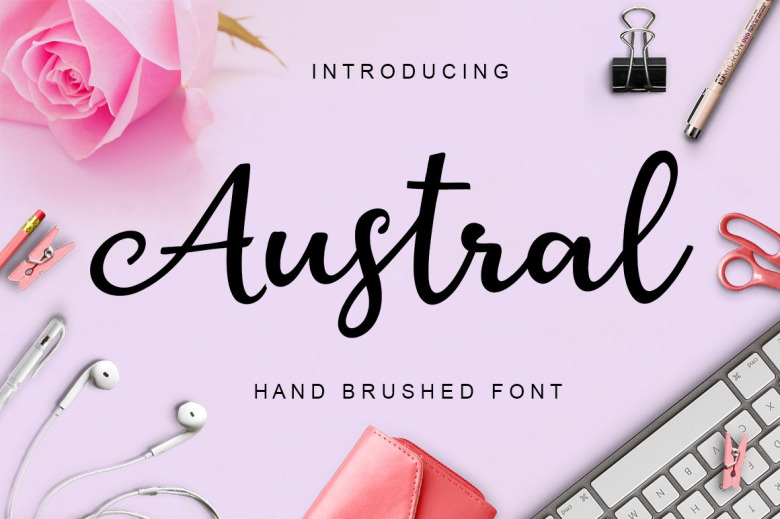
Austral Script Font
Austral is a beautiful script font with tons of modernity and charm! This well-weighted display font is ideal for use in a wide range of projects that need a girly and sophisticated vibe.